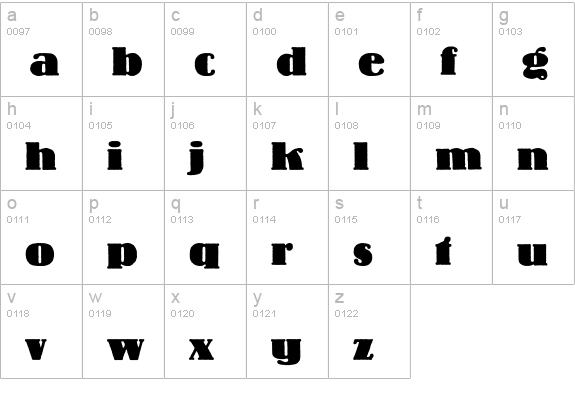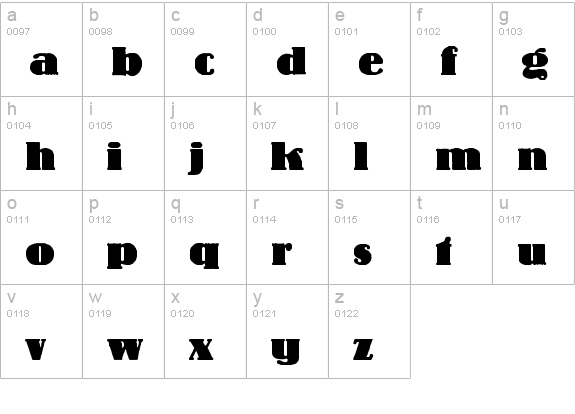
Lo-Type R Font Details
Introducing Lo-Type R font, a sleek and modern typeface that combines elegance with a touch of playfulness. This versatile font is perfect for a wide range of design projects, from branding and logos to posters and social media graphics. With its clean lines and unique character shapes, Lo-Type R stands out and makes a statement. What sets Lo-Type R apart is not only its aesthetic appeal but also its accessibility. This font is available for free download at FontsMarket.com, making it easy for designers and creatives to incorporate it into their work without any cost barriers. Whether you're a seasoned professional or just starting out, Lo-Type R is a valuable addition to your font collection. Embrace the creativity and versatility of Lo-Type R font and elevate your designs with its modern charm and timeless appeal. Download it for free today and let your imagination run wild with this stylish and eye-catching typeface.